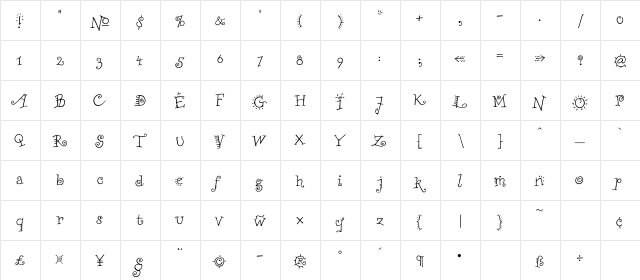
Chili Pepper Regular
Design Context for Chili Pepper Typeface
Chili Pepper is a composed and adaptable typeface that performs quietly and consistently across a wide range of design contexts.